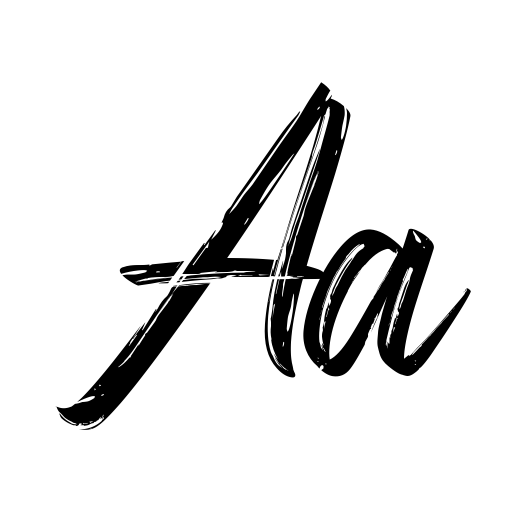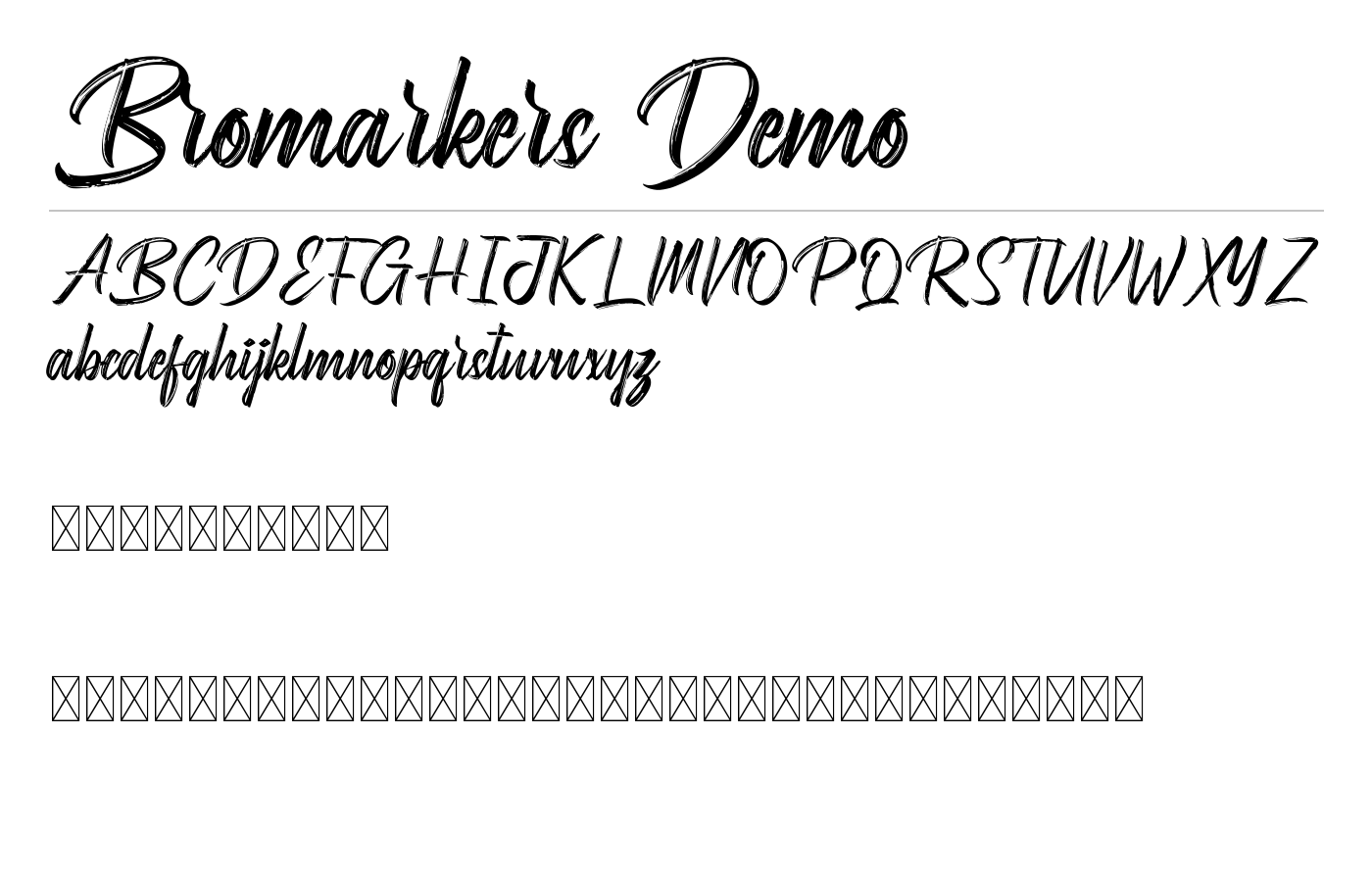
Bromarkers Demo is a lively brush script font that captures an energetic, hand-painted look with its textured, uneven strokes and casual slant. It feels informal and artistic, making it perfect for creative projects, branding, and packaging that want a personal, expressive touch. This font works well in headlines and logos where a bold, dynamic style is needed to convey warmth and creativity.
Bromarkers Demo Font
About Bromarkers Demo Font